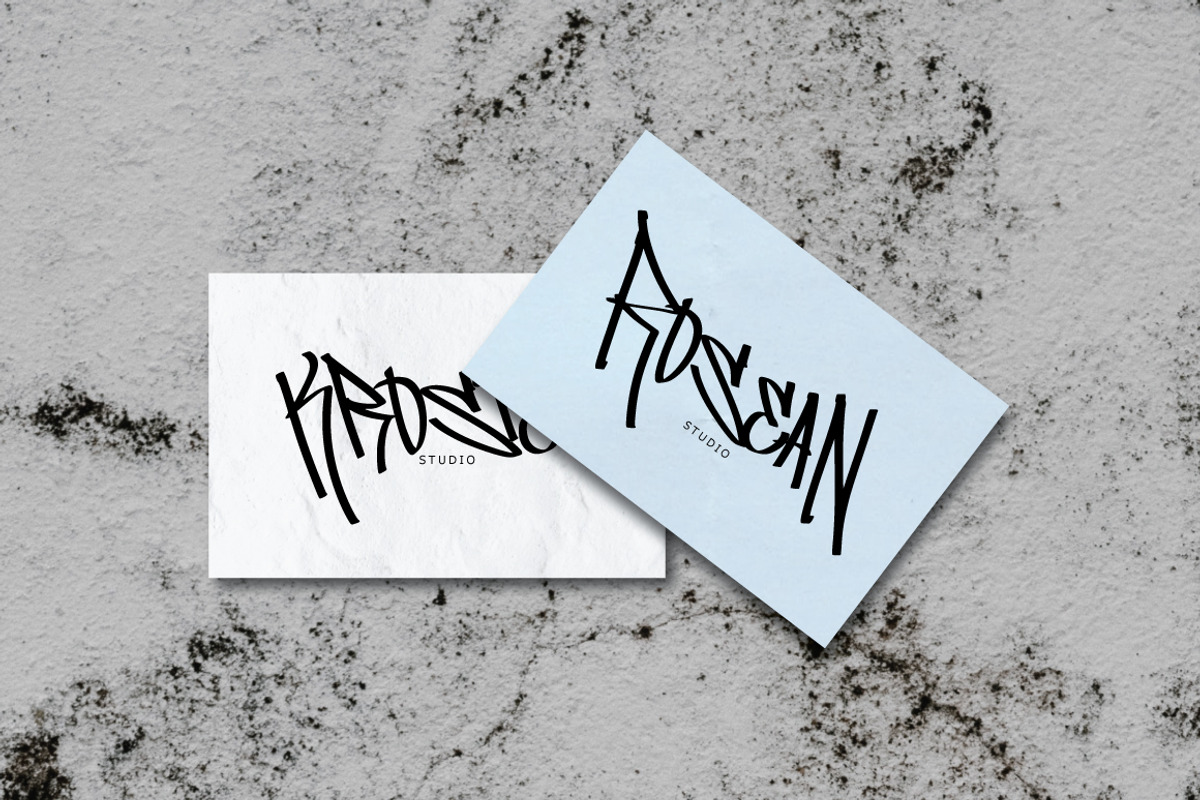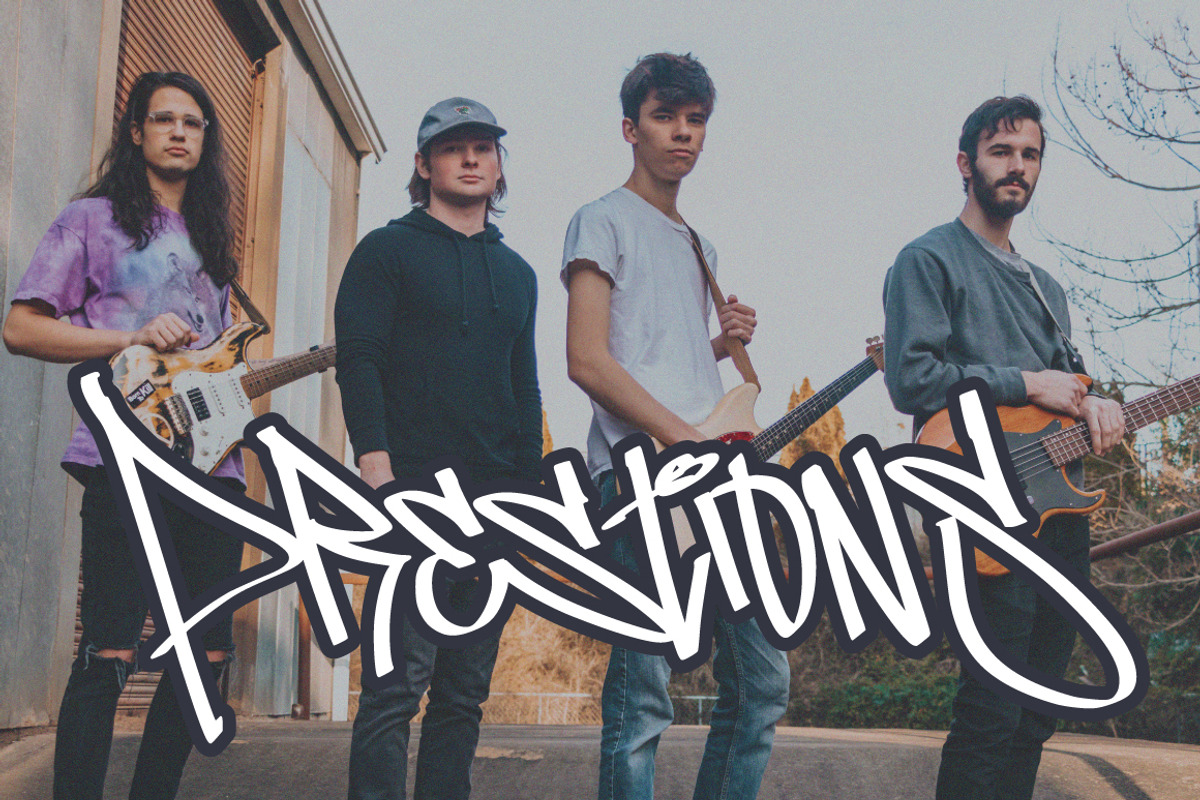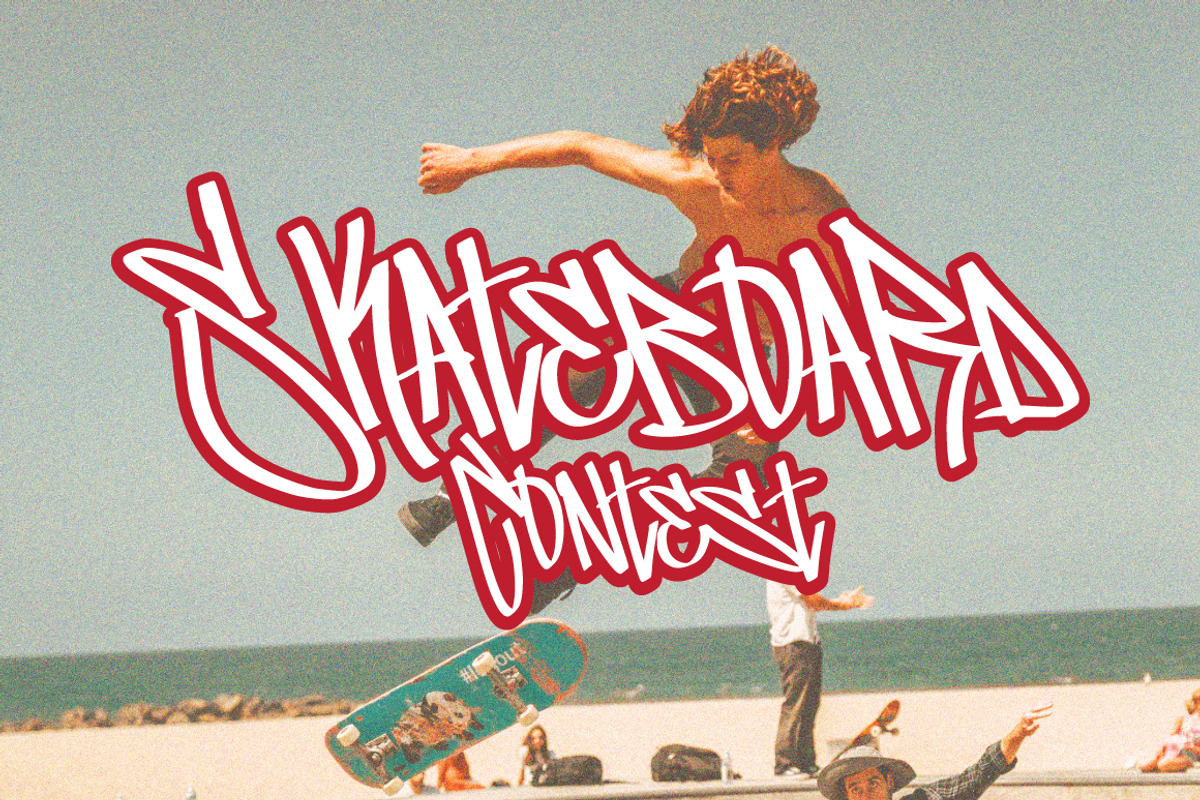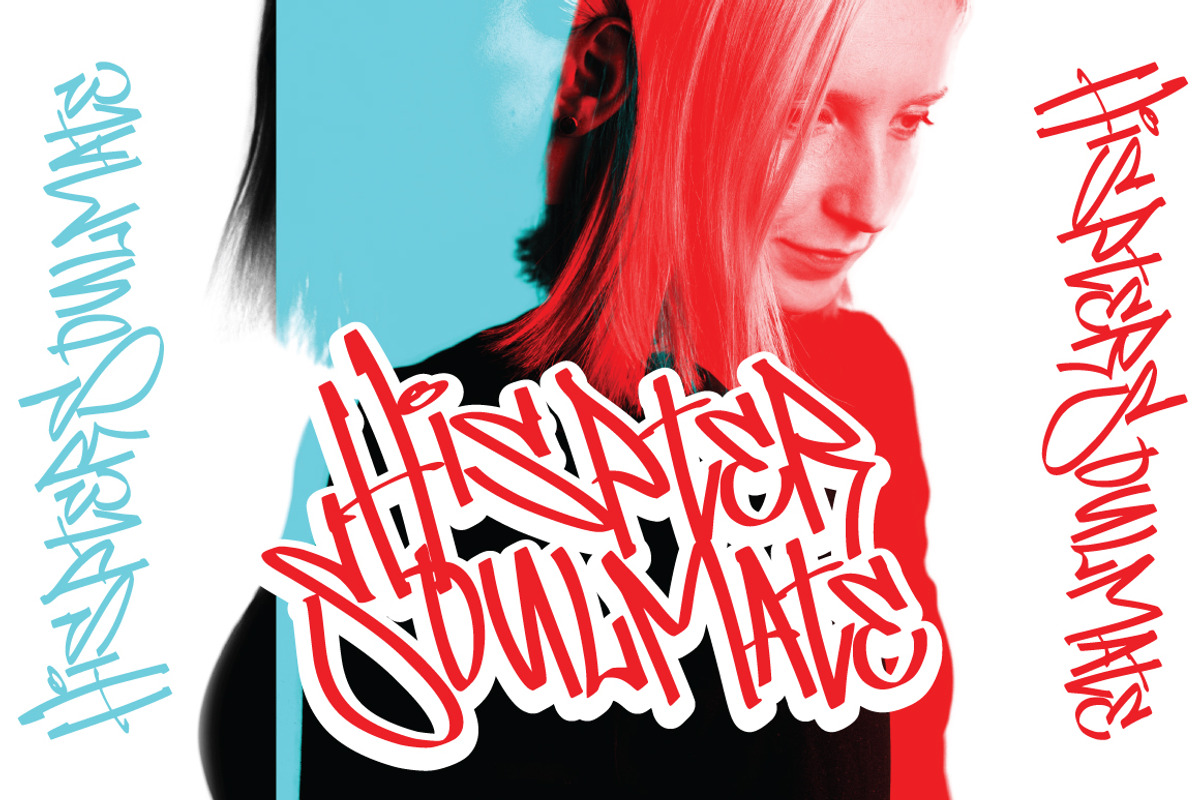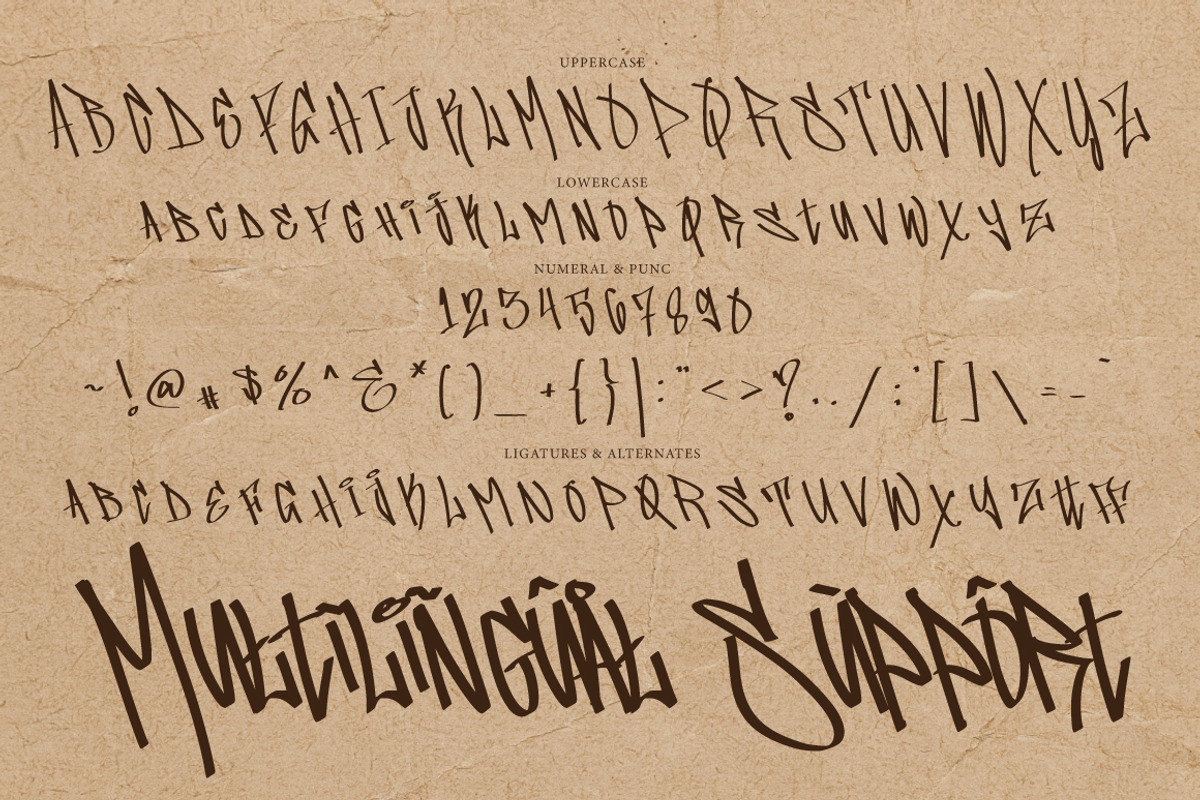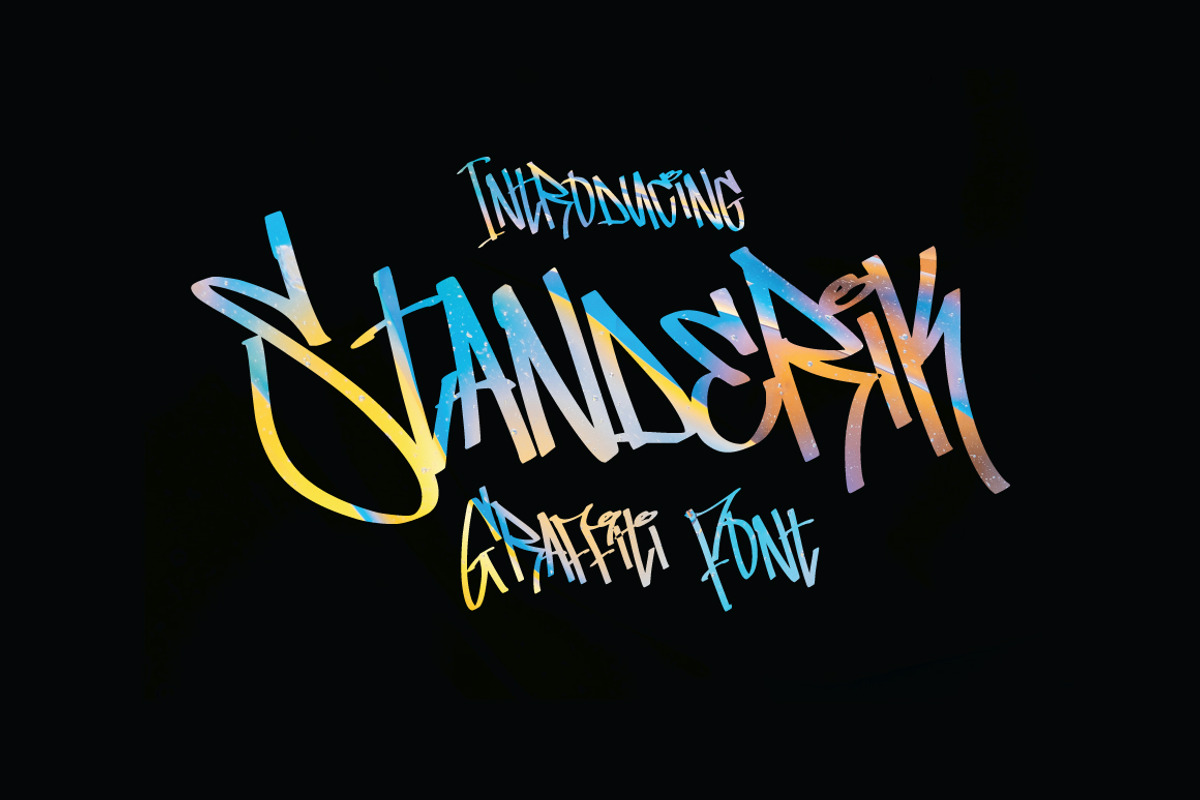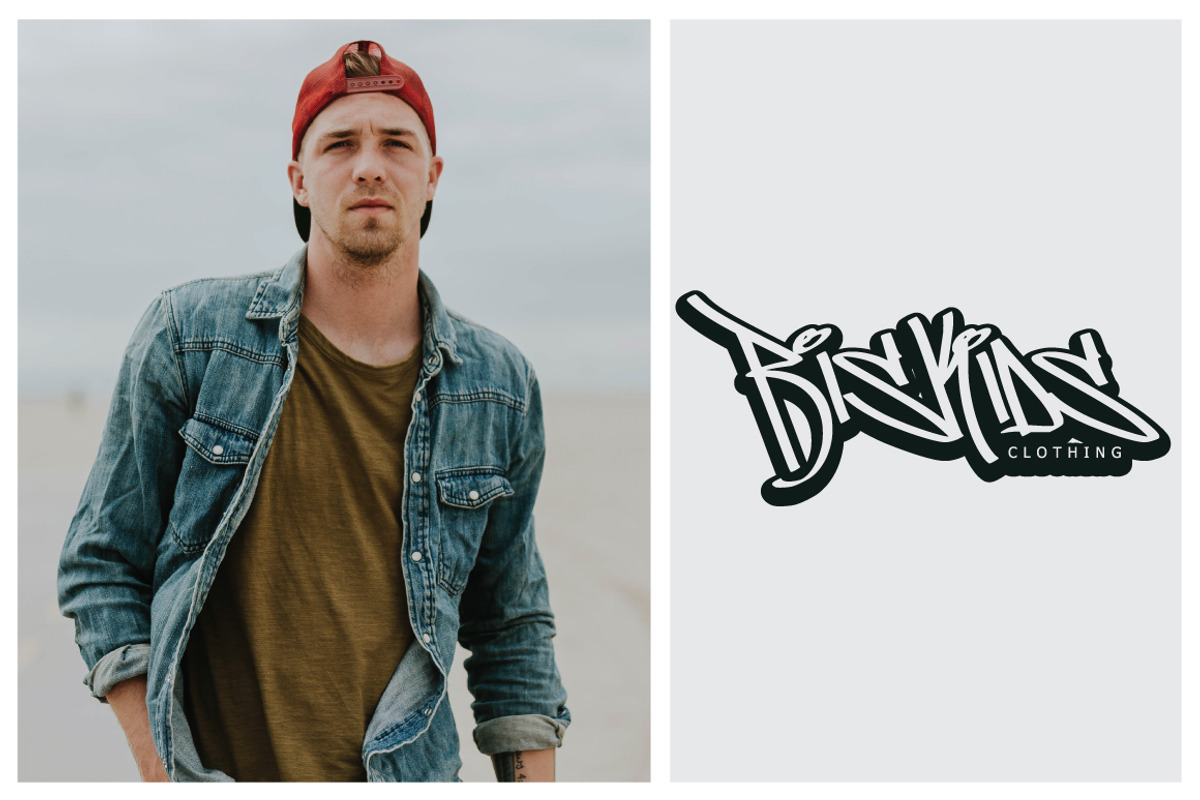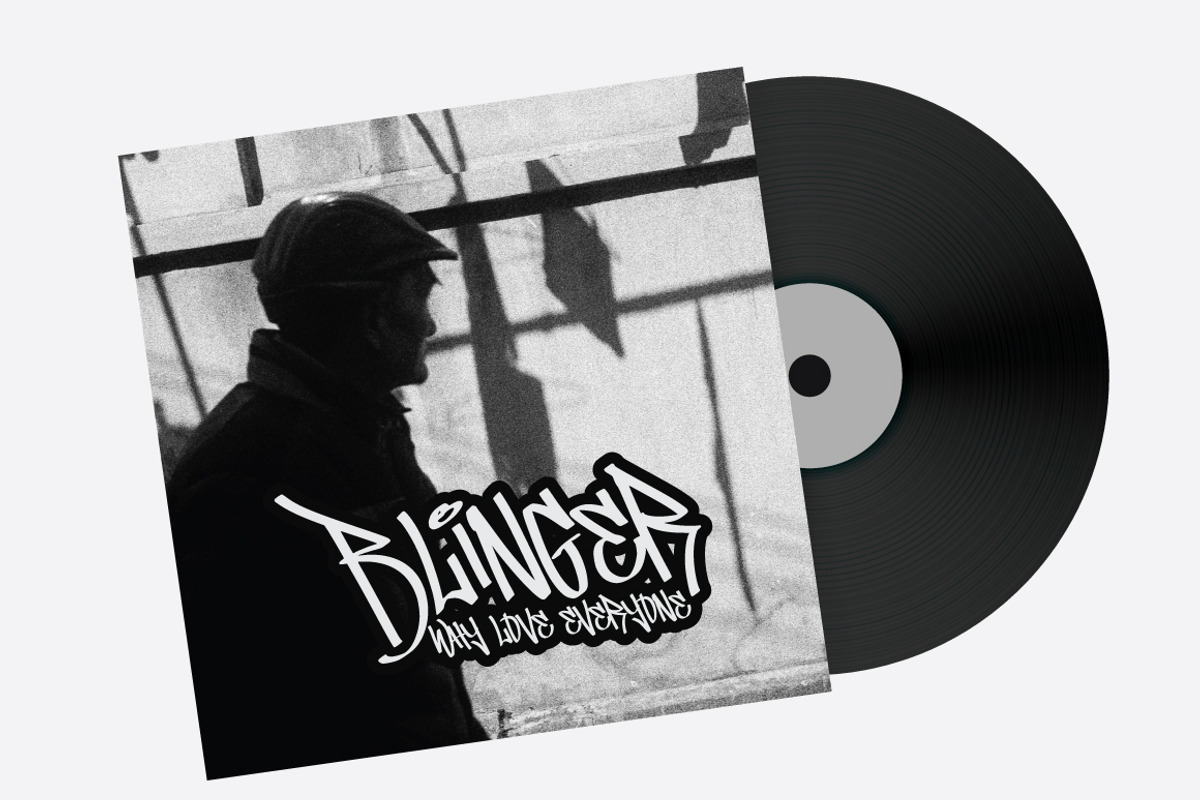
Standerik - Graffiti Font
Standerik Graffiti Font is a display font inspired by typical street art calligraphy style or graffiti tag, suitable for your design related to it. Also suitable for movie, documenter, film, logo, poster, game, book cover, headlines, title and many more projects. Add this font to your creative ideas and notice how it will make them stand out!
Standerik Graffiti Font Features :
Uppercase & Lowercase International Languange & Symbols Support Punctuation & Number PUA Unicode Range Standard Ligatures Discretionary Ligatures Stylistic Alternates Stylistic Set.